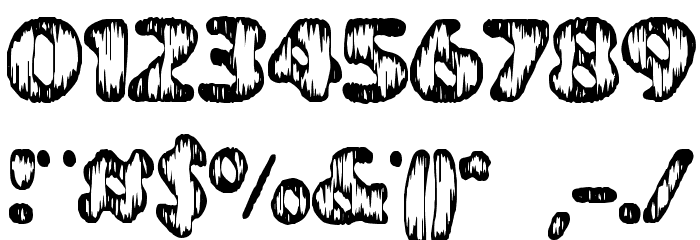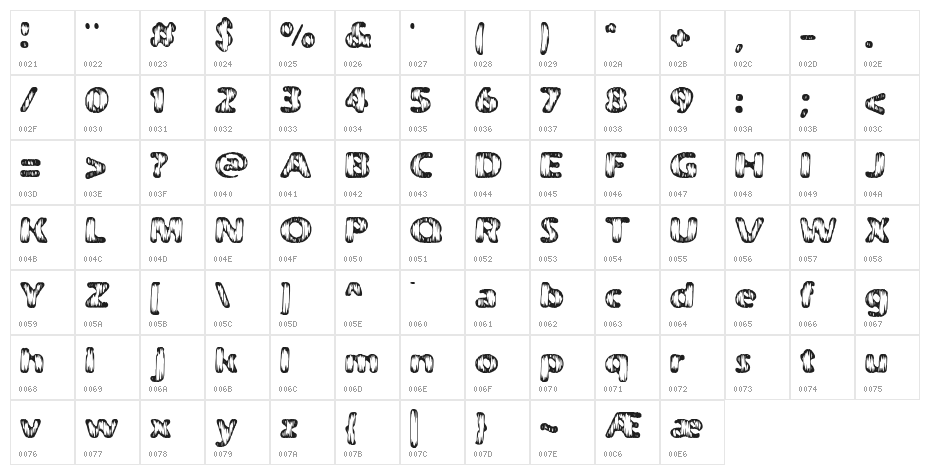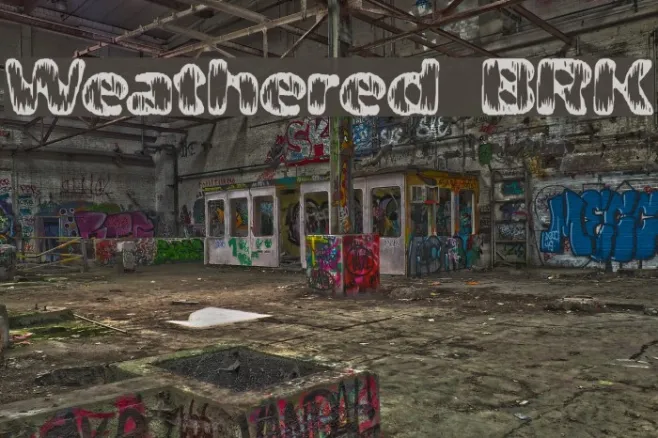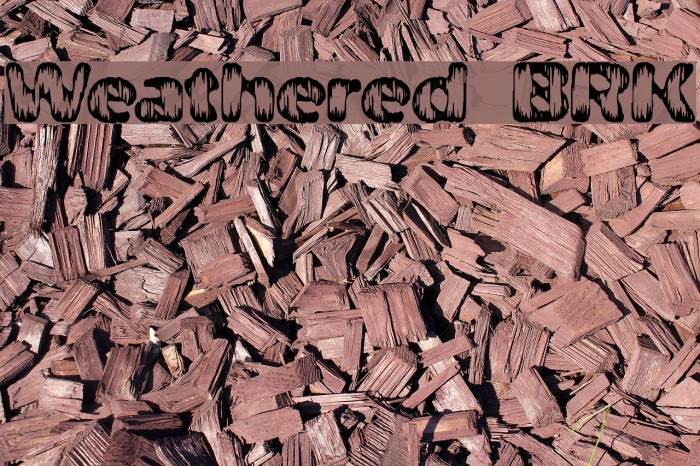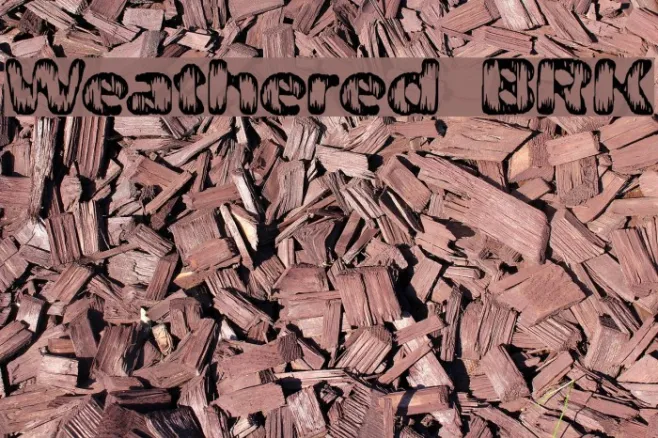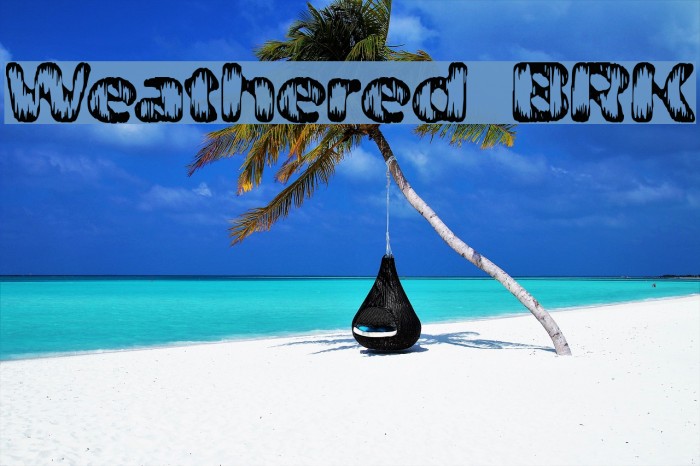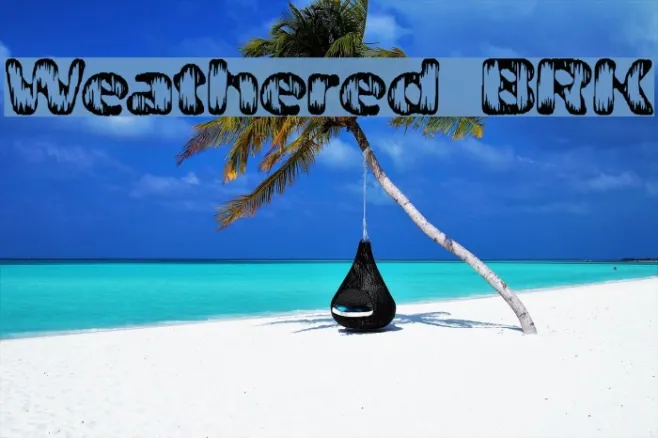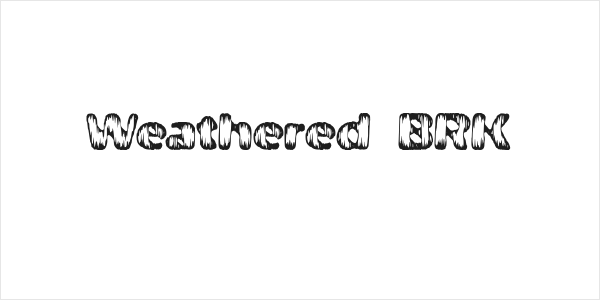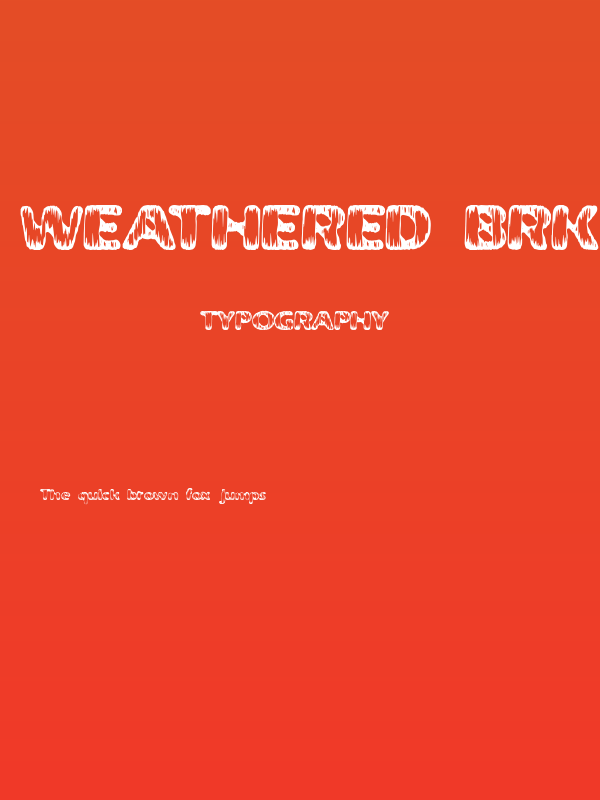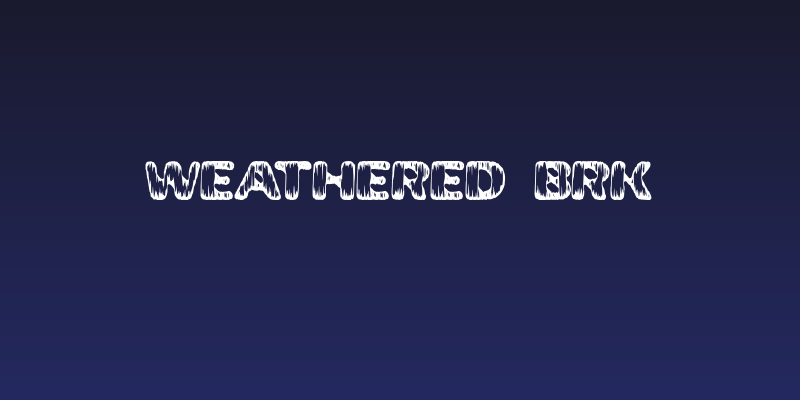
Weathered BRK Font
Weathered BRK Description
This font features a rugged, distressed appearance, reminiscent of weathered wood or worn-out surfaces. The characters are bold and chunky, with a unique texture that gives the impression of being eroded or aged. The uppercase and lowercase letters maintain a consistent style, with rounded edges and a slightly uneven baseline, enhancing the rustic feel. Numbers and special characters follow the same design, ensuring uniformity across all glyphs. This font's distinct style makes it stand out, ideal for projects that require a vintage or handcrafted look.
| Use Case | Logos, Posters, Headlines |
| Proposed Projects | Ideal for vintage-themed designs, posters, logos, and any project needing a handcrafted or rustic touch. |